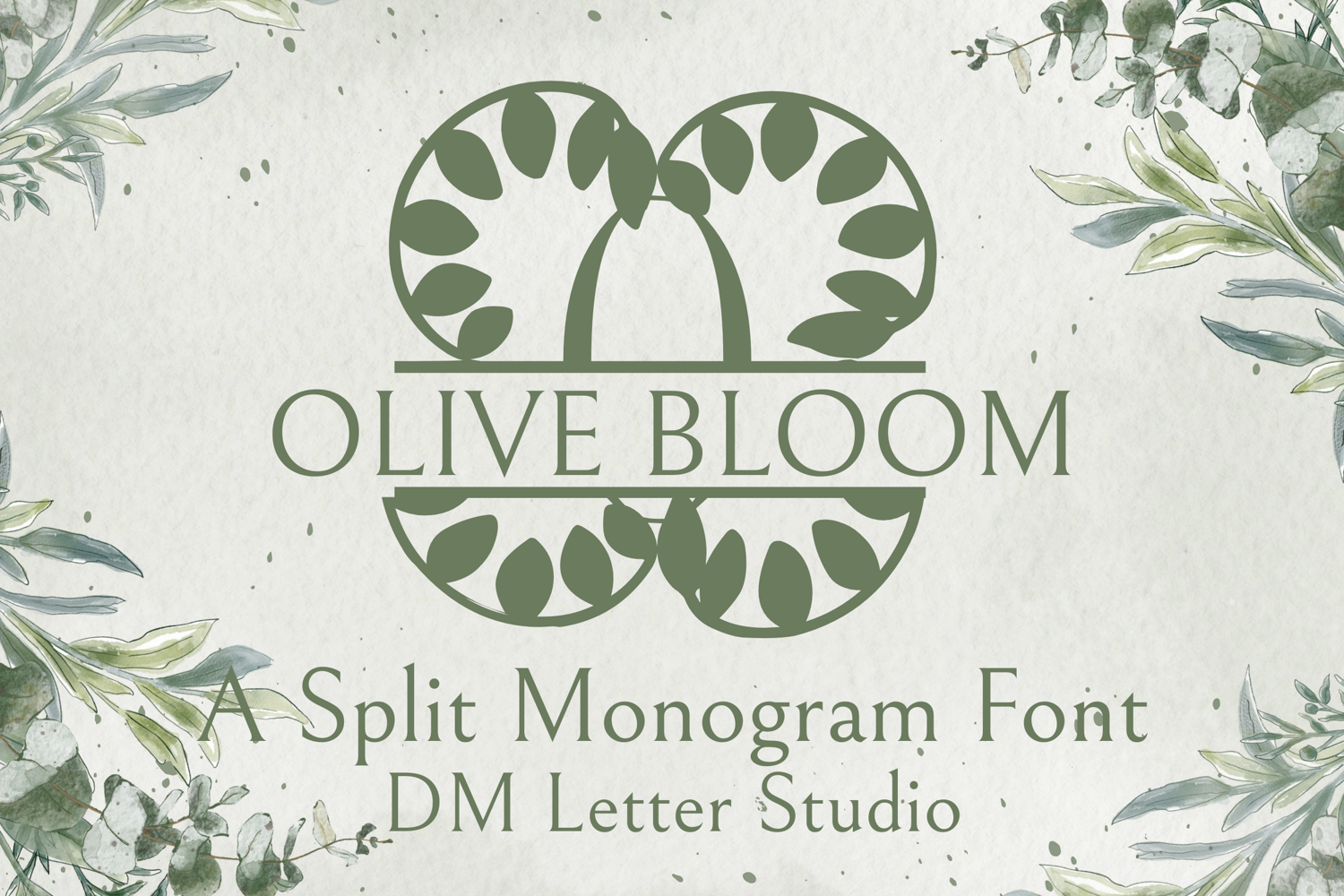
Olive Bloom Split - Monogram Serif Split Monogram Font
Olive Bloom Split Monogram
Olive Bloom Split Monogram – Serif Split Monogram Font with Olive Branch Flourishes
Olive Bloom Split Monogram is an elegant serif font featuring a clean split-letter design paired with graceful olive branch illustrations. Each uppercase letter is divided with space for names or custom text, while delicate olive motifs add a timeless botanical touch. Ideal for personalized wedding pieces, Mediterranean-themed branding, and sophisticated Cricut designs.
• Split Monogram Structure: Perfectly aligned split design allows easy text customization.
• Olive Branch Artwork: Hand-drawn olive leaves and stems wrap each letter in natural beauty.
• Classic Serif Elegance: Balanced serif letterforms add structure and charm to every monogram.
• Ideal For: Wedding signage, personalized gifts, rustic logos, olive-themed decor, Cricut name cut files, and custom branding.